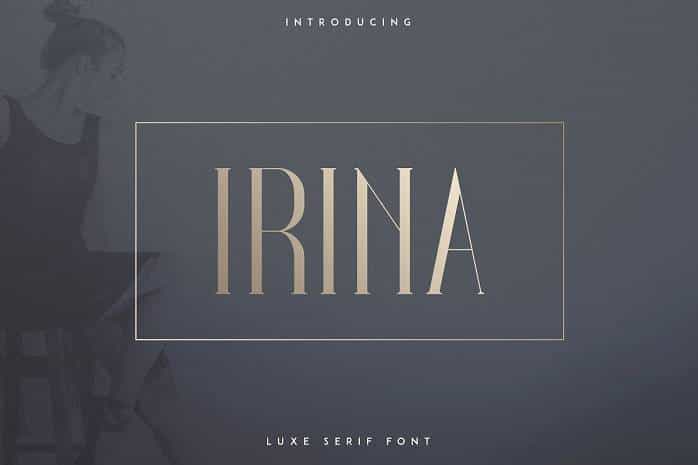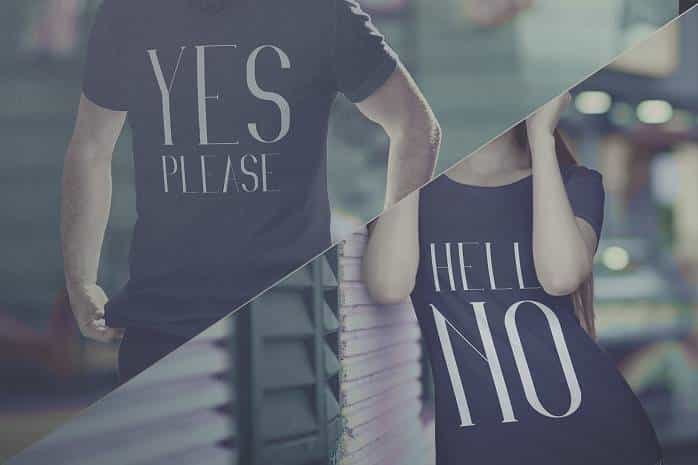
Introducing Irina Luxe Font. Elegant high end multi language supported serif font- Irina. It is a highly adaptable font that fits well in both large and small sizes. Irina is great for branding works, house wares designs, product packagings, wedding invitations, magazine headers – or as a stylish text overlay to any background image.